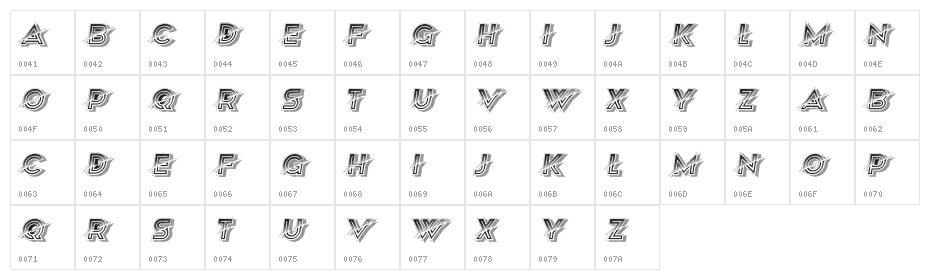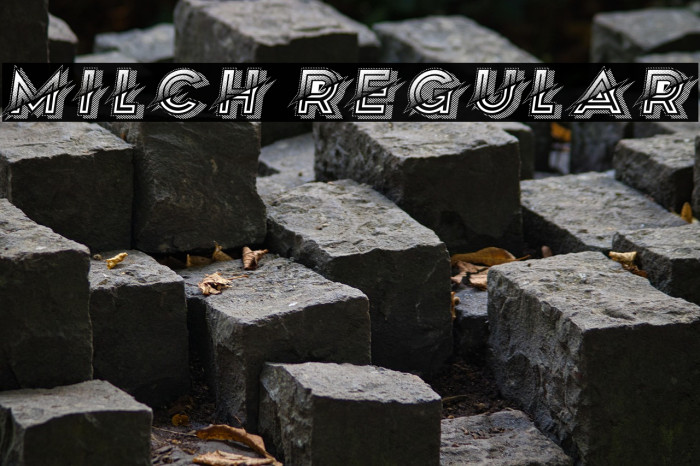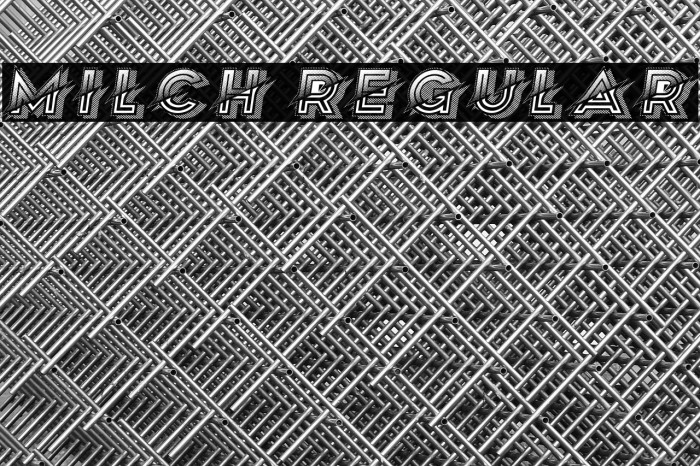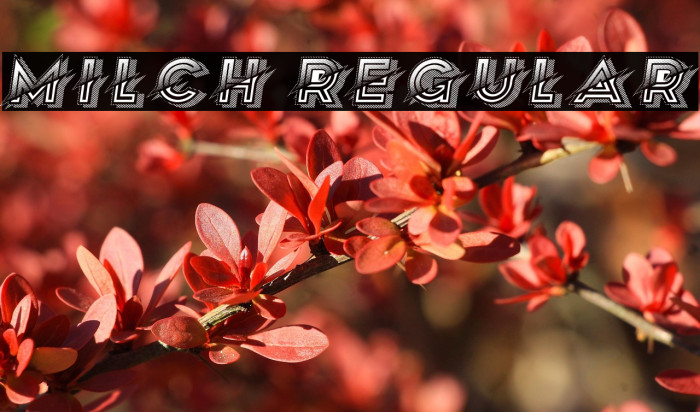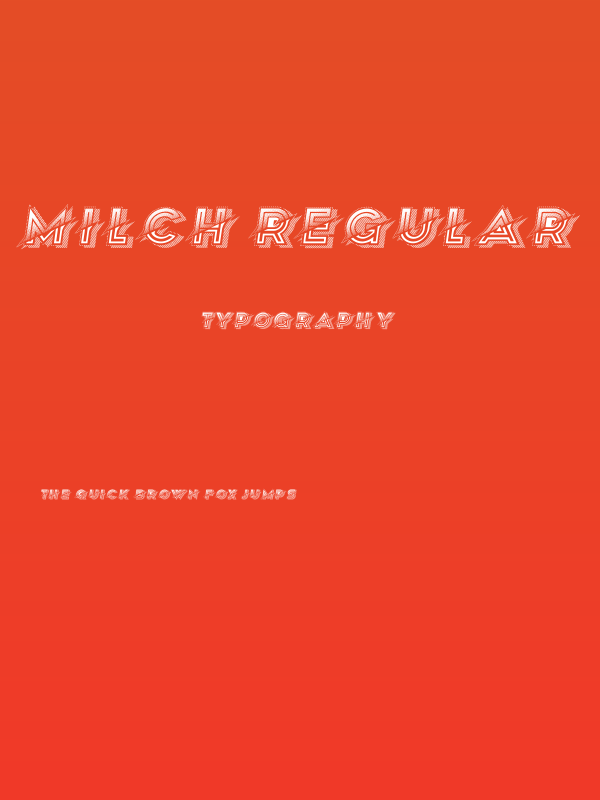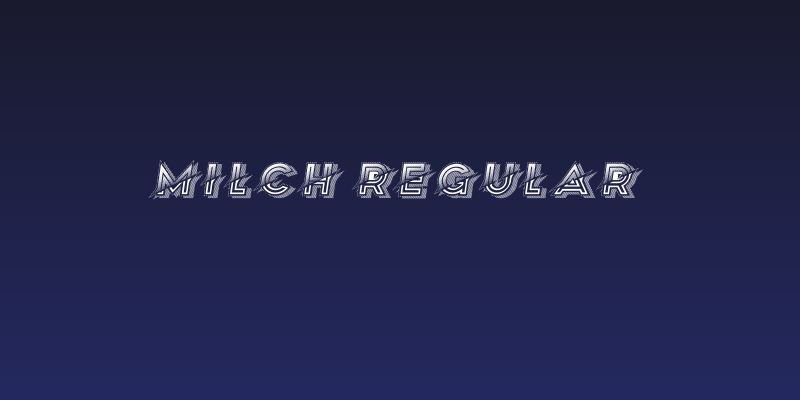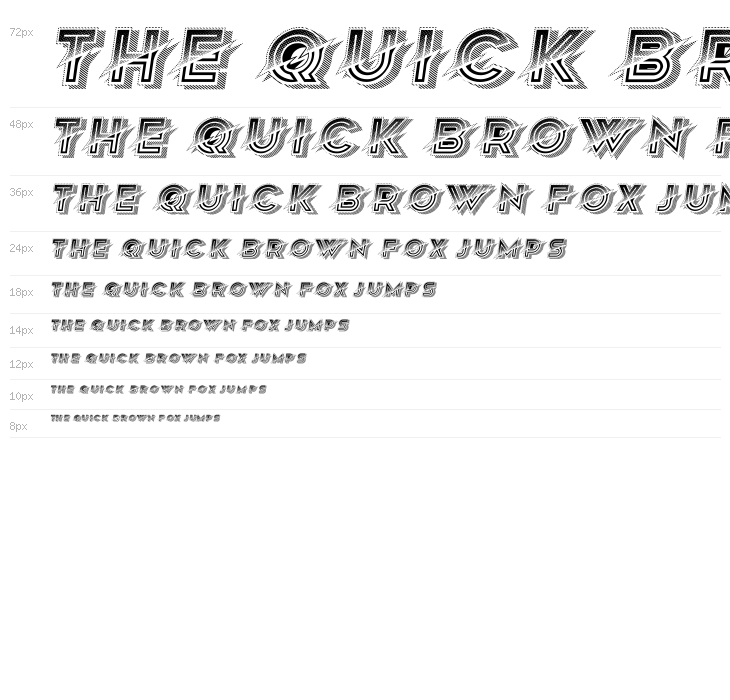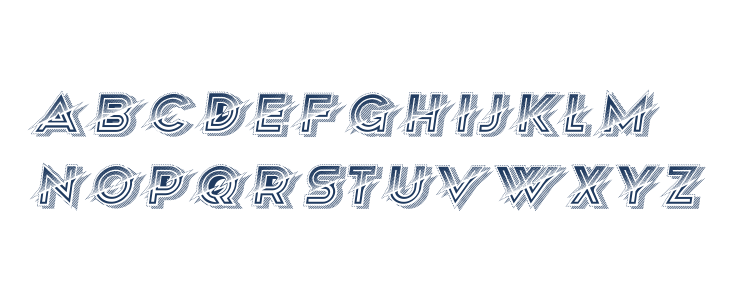
Milch Regular Font
Milch Regular Description
This font features a bold, decorative style with a unique 3D shadow effect that gives it a dynamic and eye-catching appearance. The characters are uppercase only, with a strong geometric structure and sharp angles that create a sense of movement and energy. The intricate detailing within each letter adds depth and complexity, making it suitable for projects that require a standout visual element. The font's design is both modern and playful, ideal for creative and artistic applications.
| Proposed Projects | Ideal for posters, logos, headlines, and any design that needs a bold, artistic touch. |